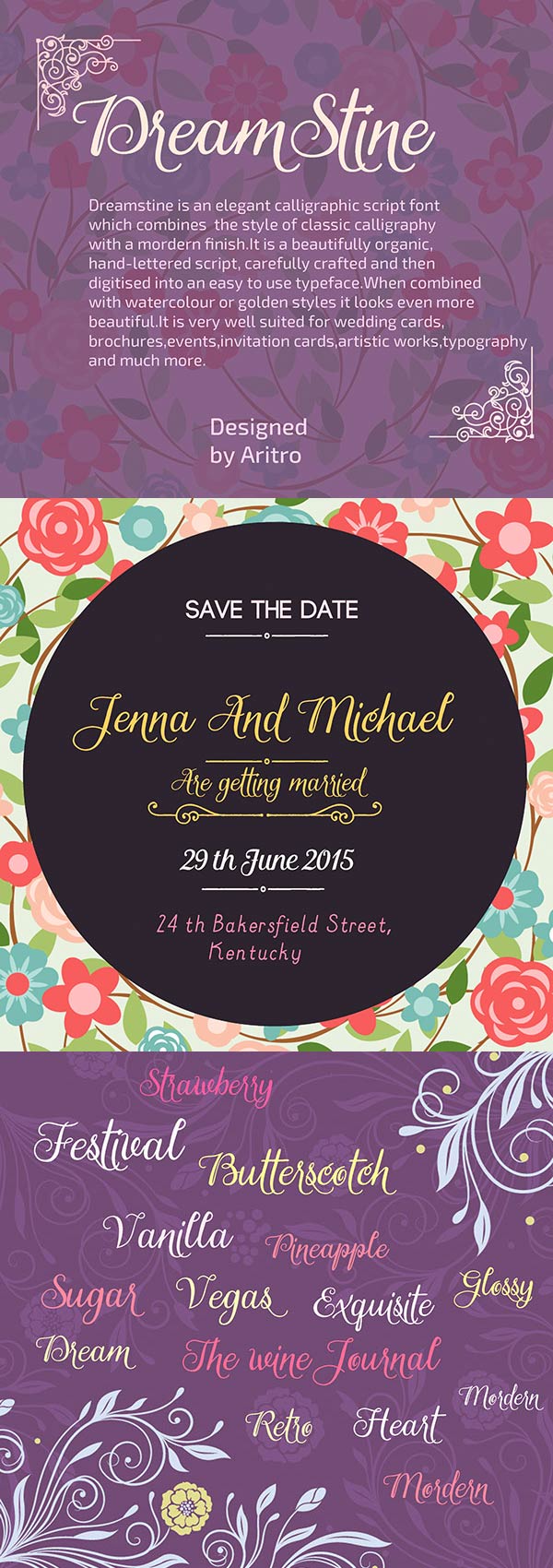
Dreamstine is an elegant, feminine calligraphic script font that combines the classic calligraphy with modern finish. This font is perfect for wedding invitation cards, art event posters, brochures and more, together with soft and pastel color palette.